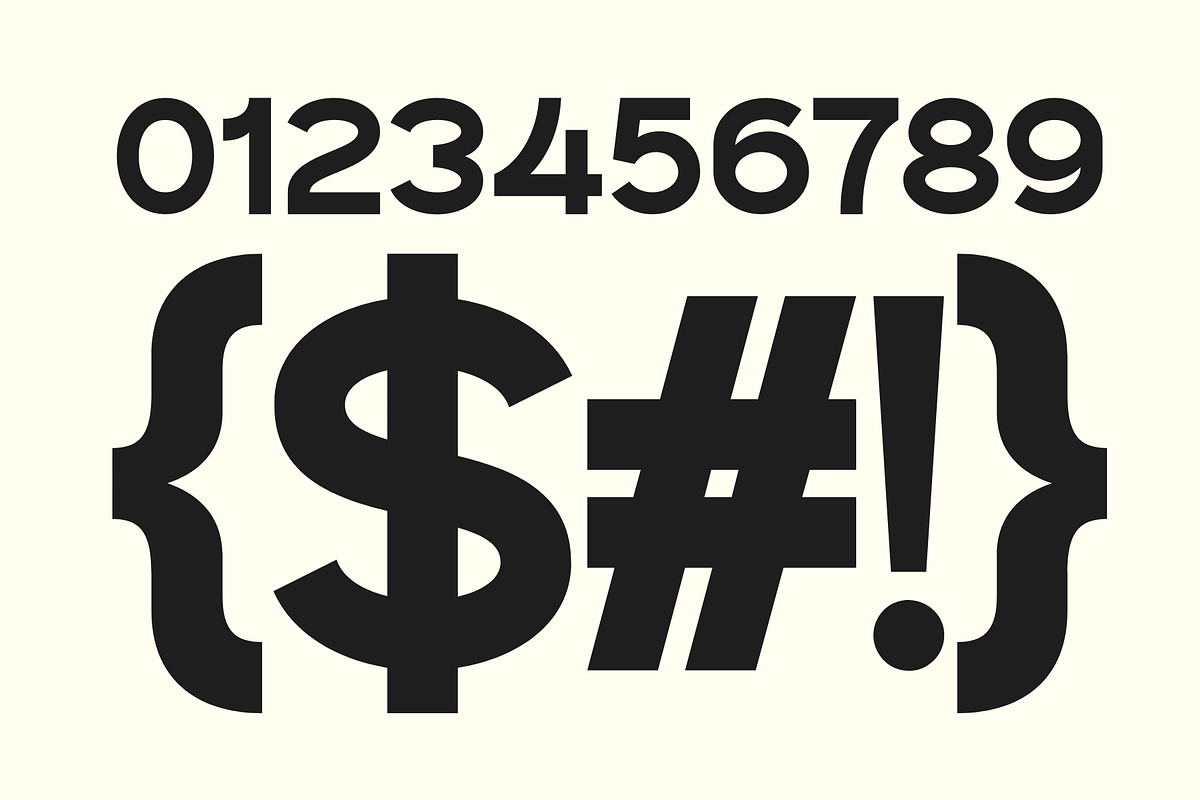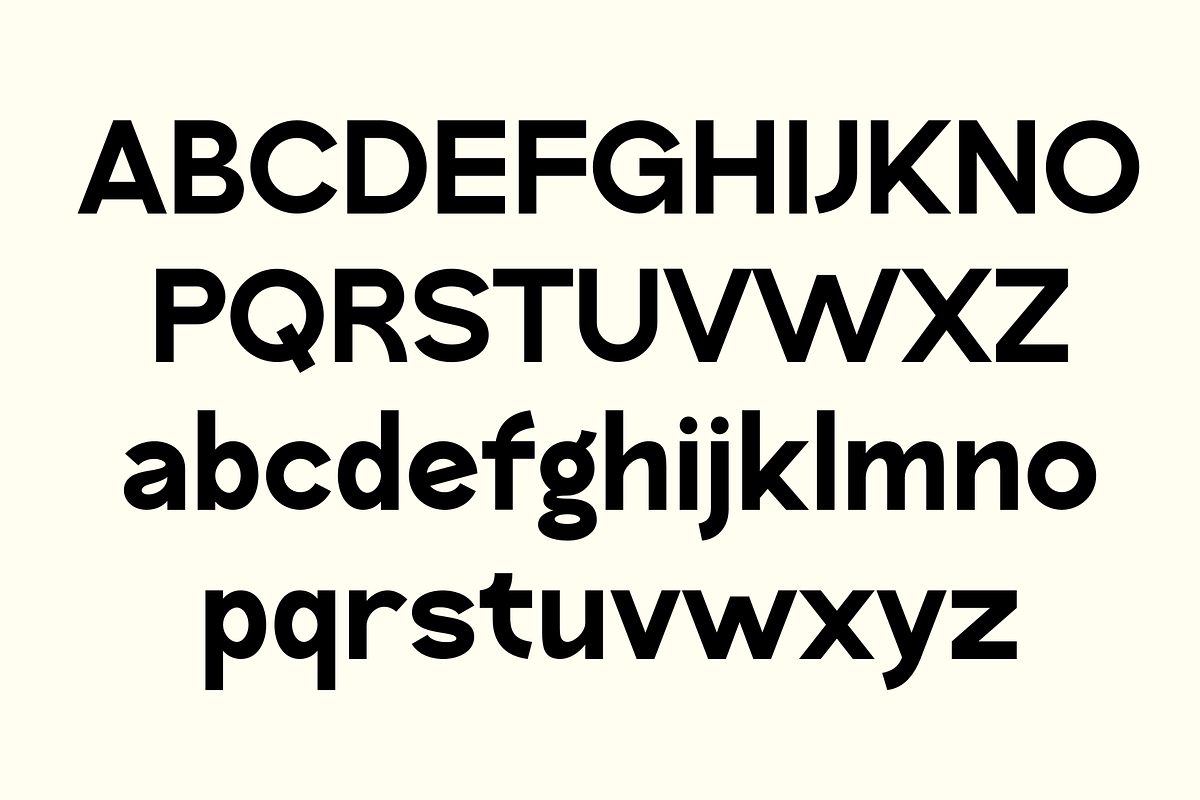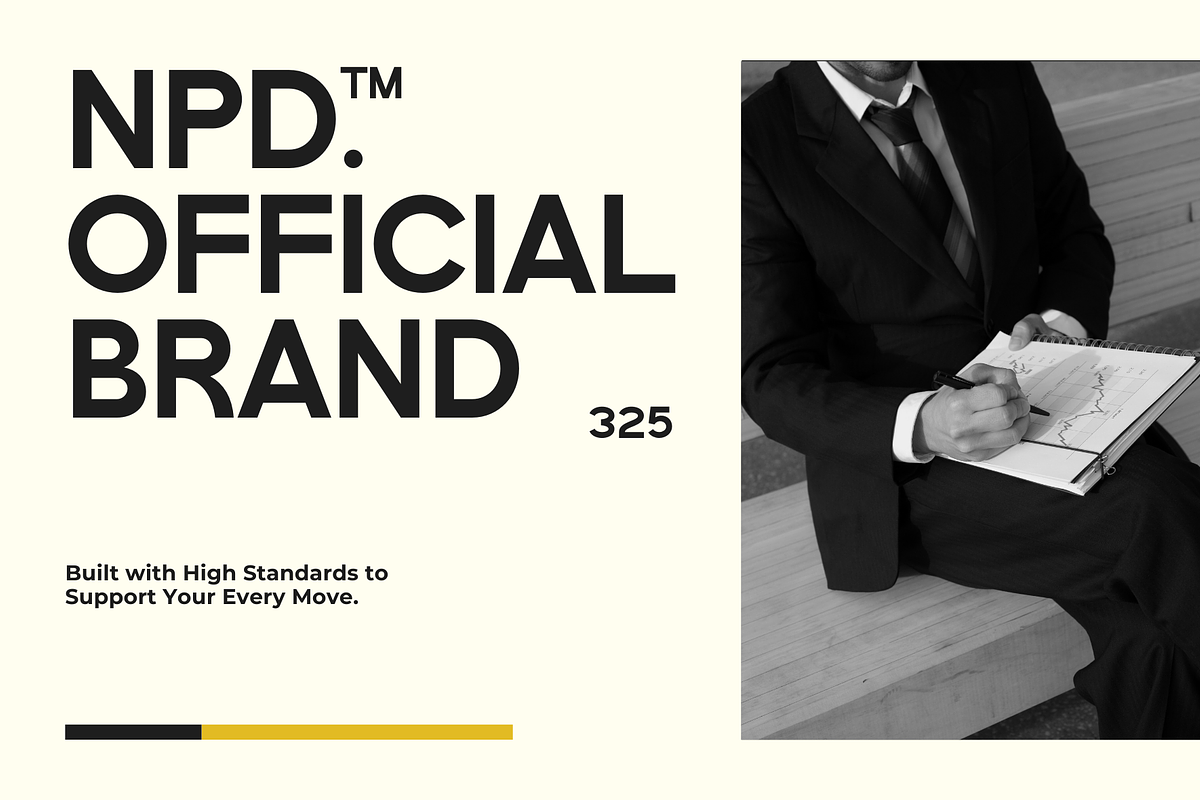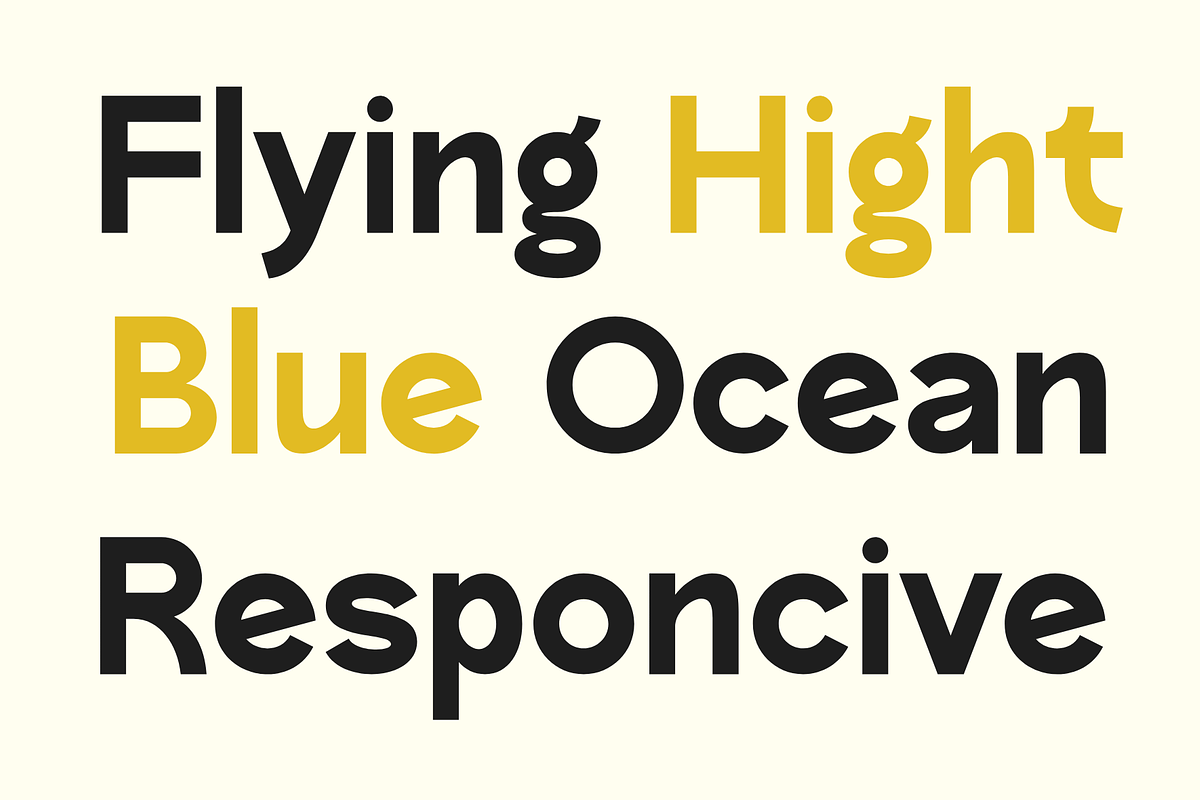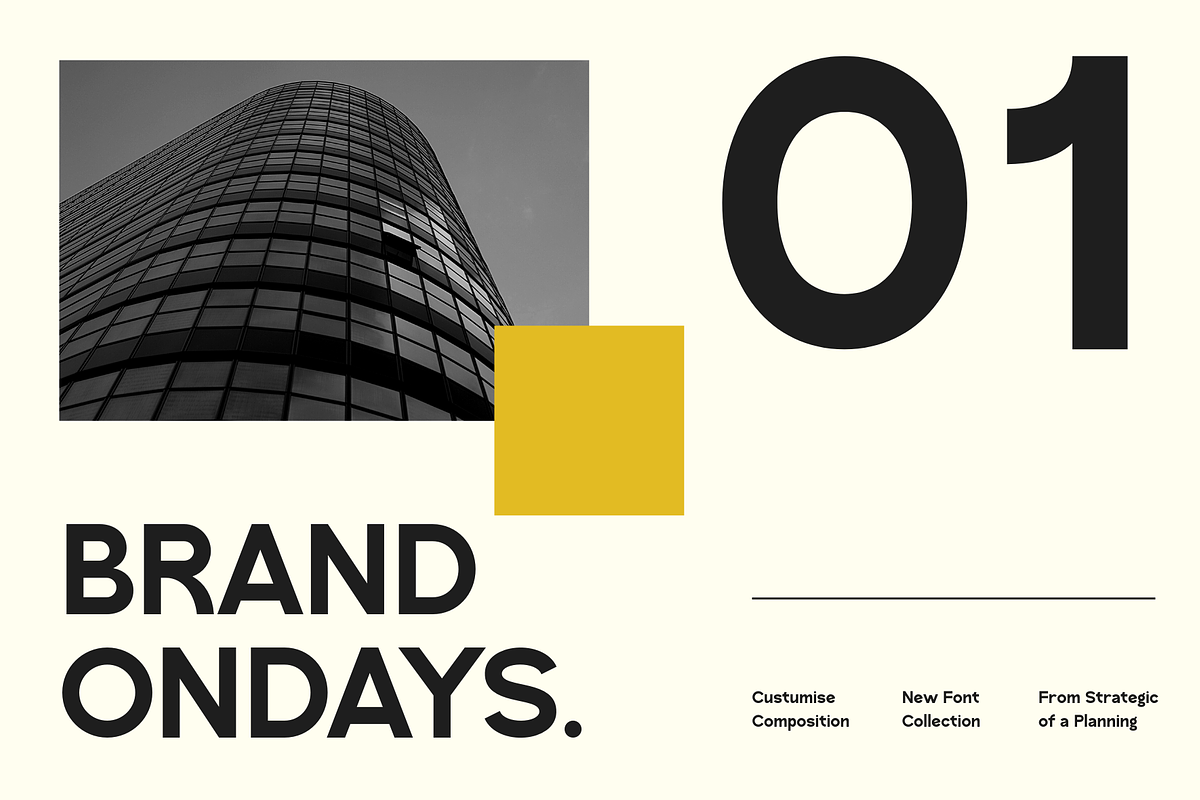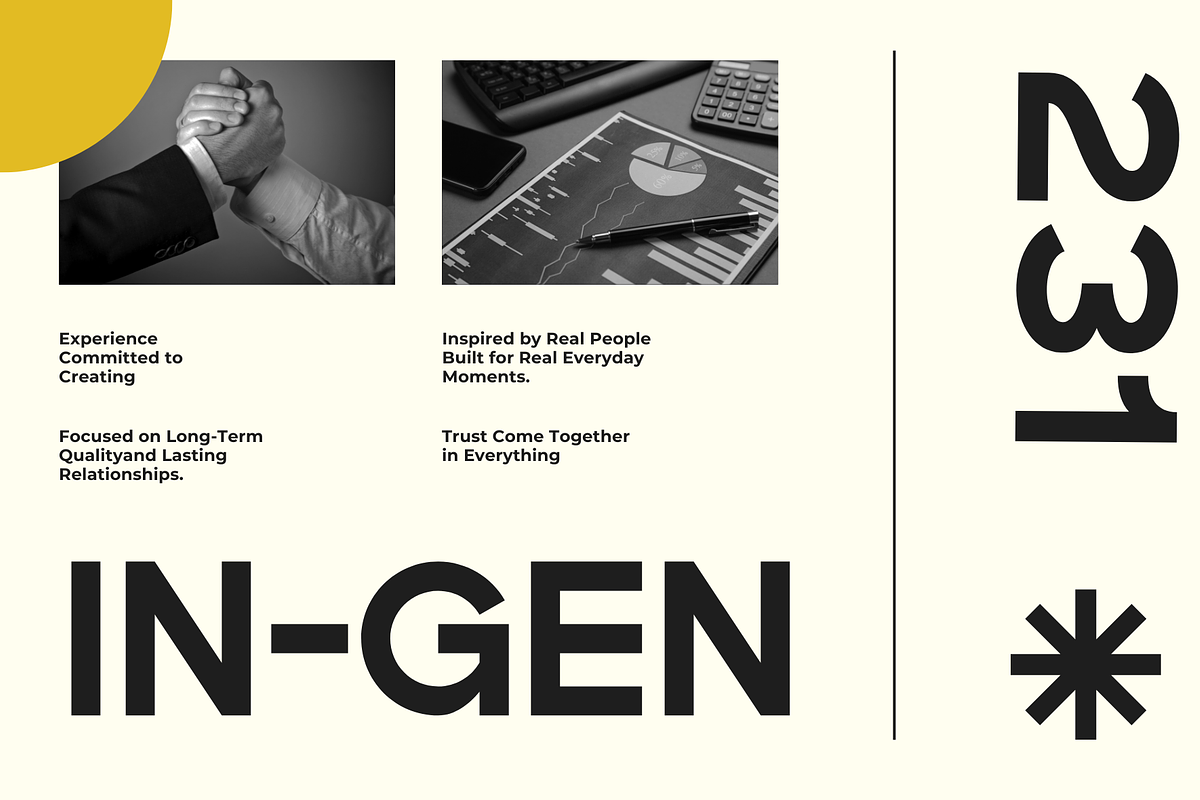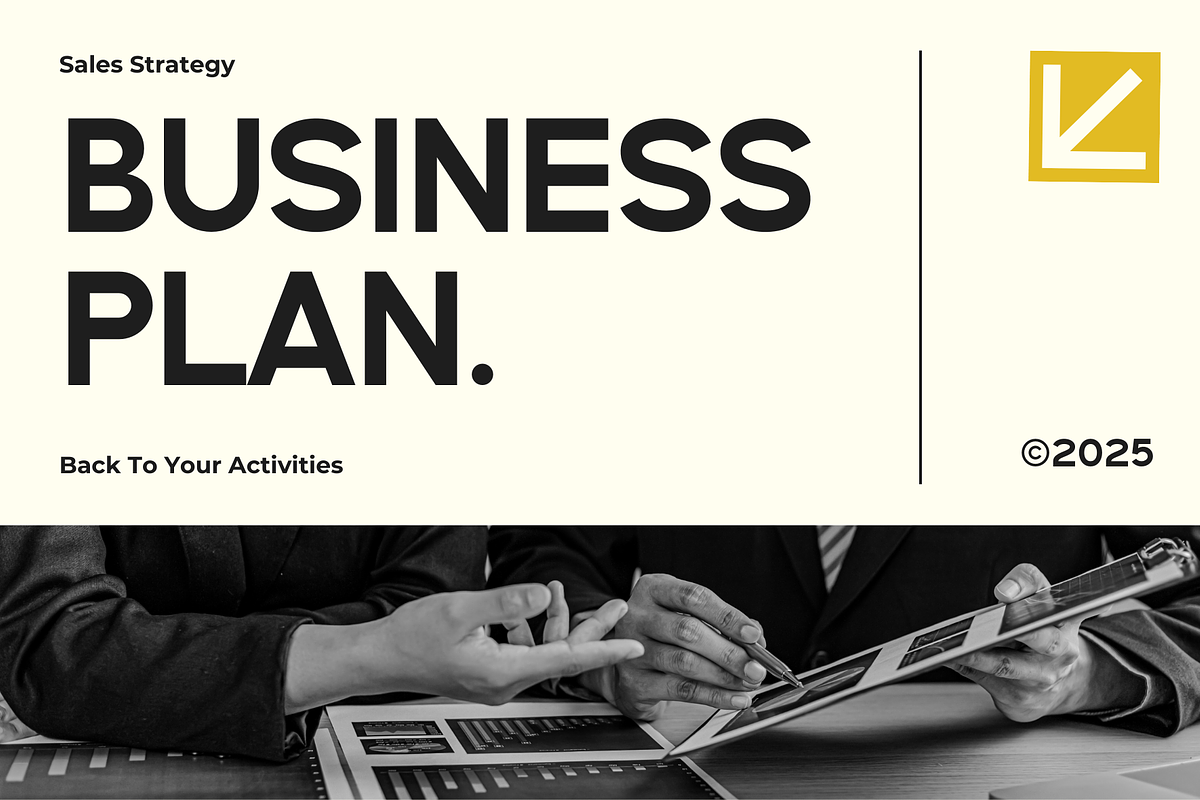
Meiro – Modern Clean Sans Serif
Introducing our new product Meiro – Modern Clean Sans Serif
Meiro is a modern, clean sans serif font designed for contemporary visual needs. With its bold structure, smooth curves, and balanced proportions, Meiro delivers a strong yet minimalist look that's perfect for both digital and print design.
This typeface is ideal for branding, logos, headlines, posters, web design, social media, editorial layouts, and corporate projects. Its clean geometry and clear readability make Meiro a versatile choice for designers seeking a professional and modern aesthetic.
Whether you're creating an elegant brand identity or attention-grabbing promotional materials, Meiro offers a timeless and confident typographic solution.